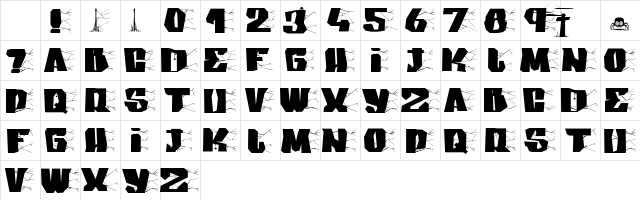
Complete Arakphobia Regular glyph index. Displaying only characters natively supported by Arakphobia Regular font.
Arakphobia is a composed and adaptable typeface that performs quietly and consistently across a wide range of design contexts.